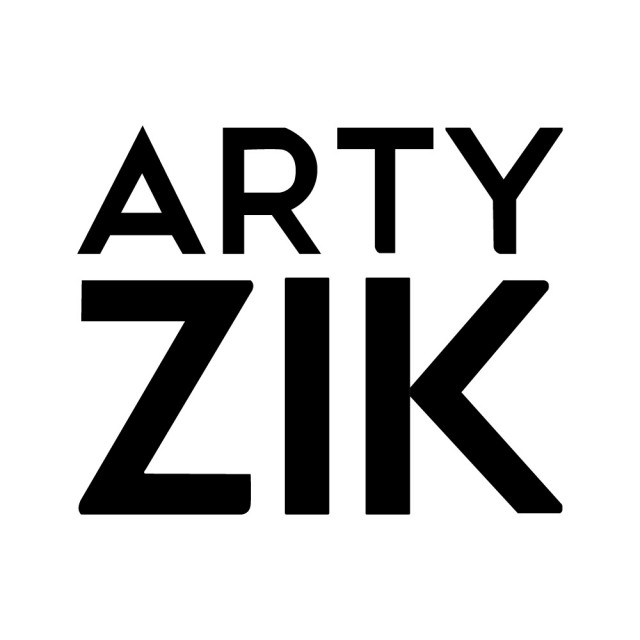
I was experimenting with logo creation on another computer and suddenly I have no access to it anymore, I have only IMAGE with the logo and I really like it!
Please, could you help me identify the font of this text??? THANK YOU FOR YOUR TIME!
Arty
Well, not to be supremely unhelpful, but I don’t recognize the letterforms here.
You won’t love this, but I don’t think the font is really working. Especially, the capital “R” in ARTY looks really bad, like something that was handmade by a person who doesn’t understand typography (I’m no expert in the realm myself).
If you just need something close you can try
Geometos Soft Bold
Not sure why you dont like it I see it OK ? Is anyone else thinks this is looking bad?
The rounded corners came with no rhyme or reason, and the R was so horrifically, amateurishly mangled that, yeah, I think this is looking bad.
That R is pretty bad, the rounded corners make me think of Lato but don’t fit the overall feel. If you’re trying to incorporate a curve to contrast the straight lines I think there’s a better way to do it.
Hey, not sure but think its a slightly edited font, Geometos Neue Bold is a pretty similar font that u could try editing as well :slight_smile: